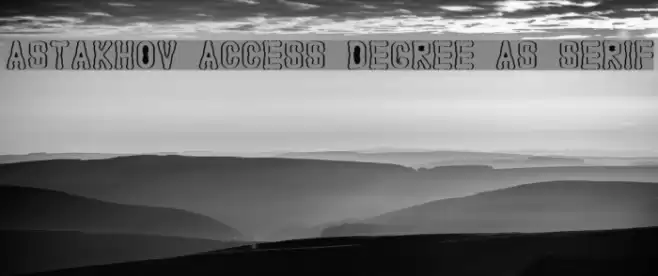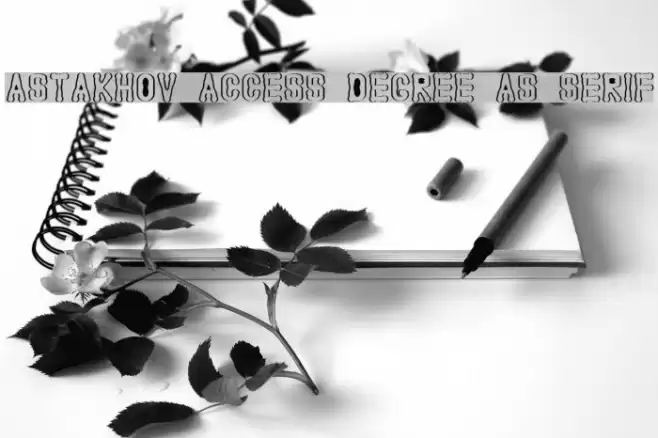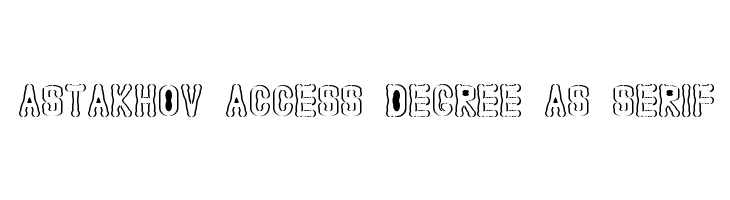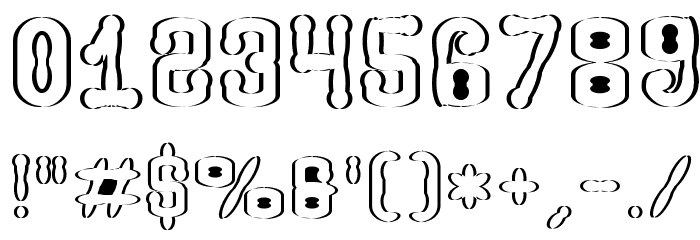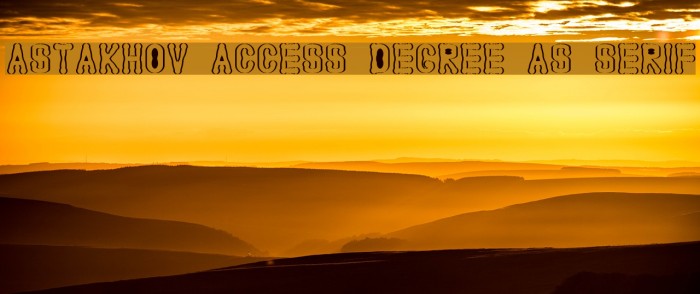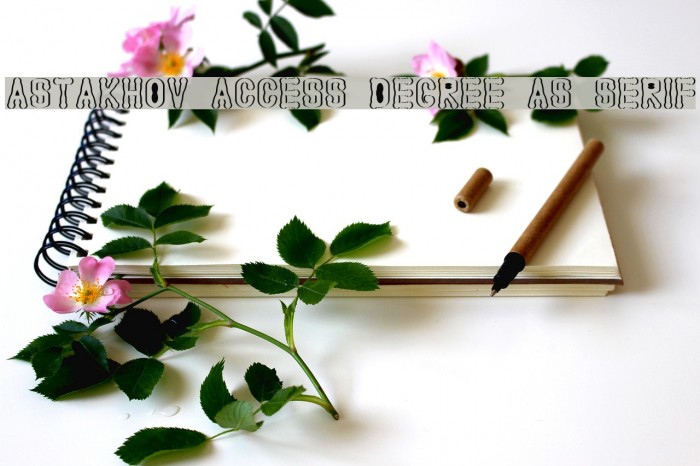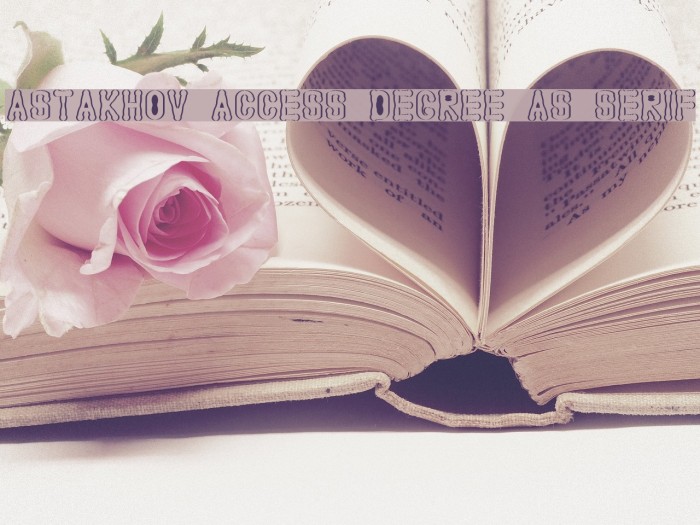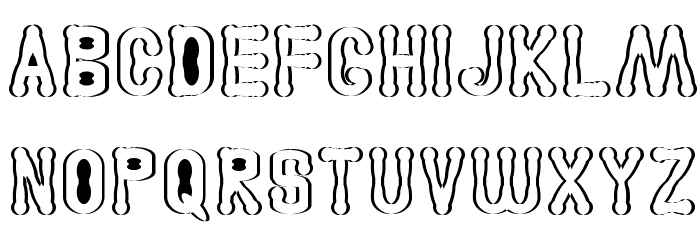
Astakhov Access Degree AS Serif Font
Astakhov Access Degree AS Serif Description
This font features a bold and playful design with a unique, wavy outline that gives each character a dynamic and lively appearance. The letters are uppercase and have a consistent thickness, creating a strong visual impact. The style is reminiscent of retro or vintage aesthetics, with a touch of modern flair due to its unconventional shapes. The numbers and special characters maintain this quirky style, ensuring a cohesive look across all glyphs. The font's distinct personality makes it suitable for creative and eye-catching designs.
A bold, playful font with wavy outlines and a retro-modern vibe from Uncategorized fonts.
- Proposed Projects: Ideal for posters, album covers, branding for creative industries, and any project requiring a bold, eye-catching typeface.
- Overall Style: Retro, Modern, Decorative